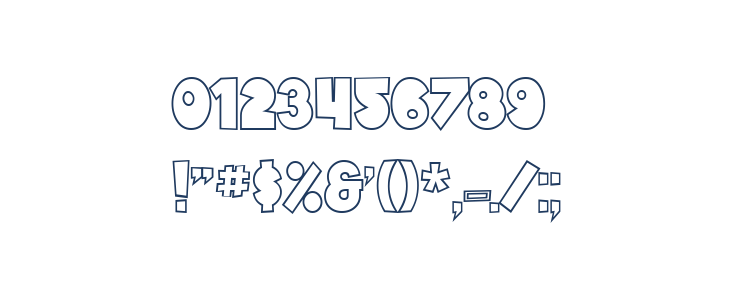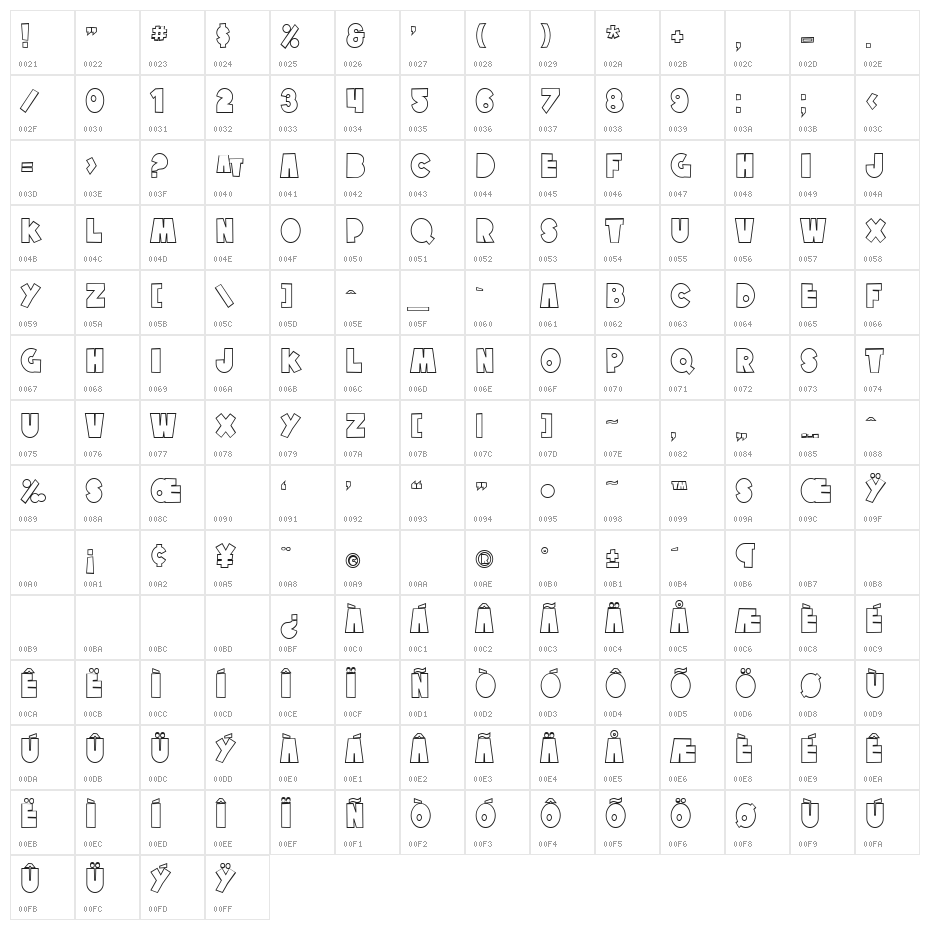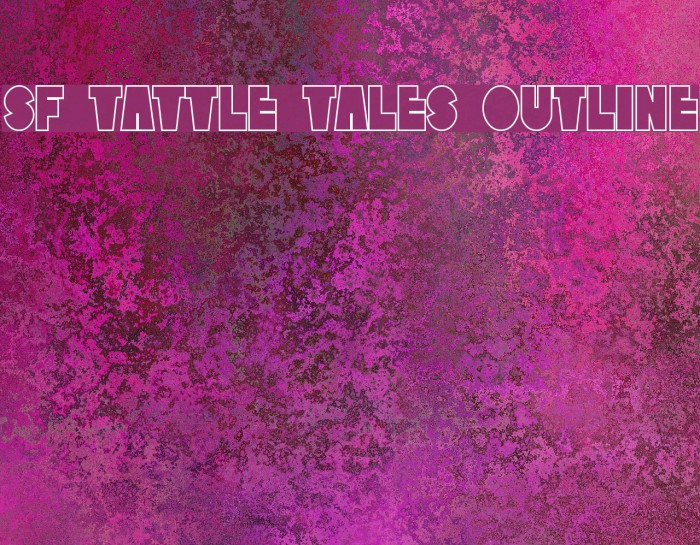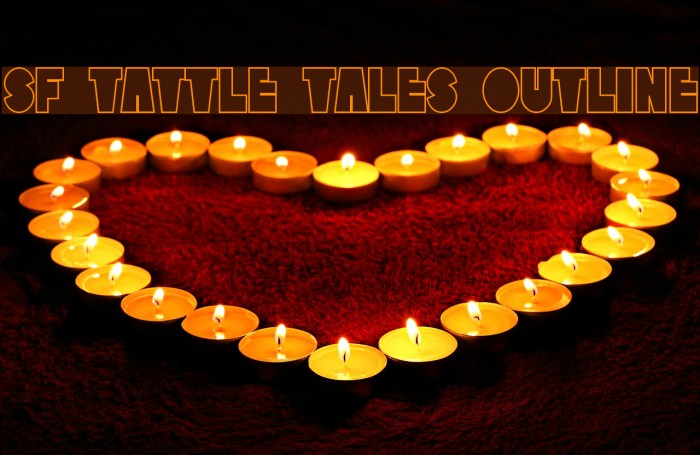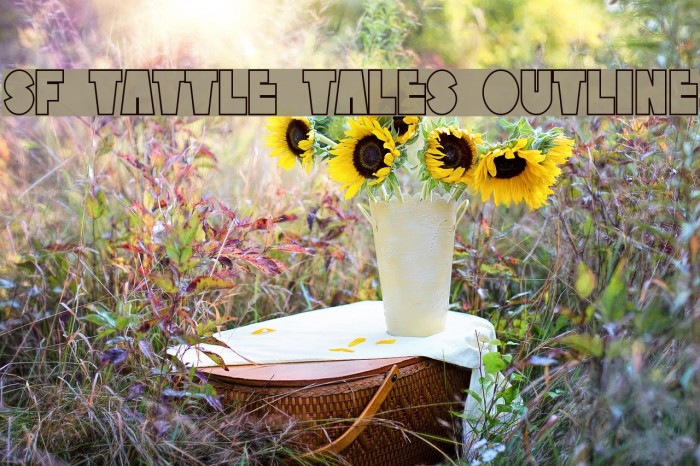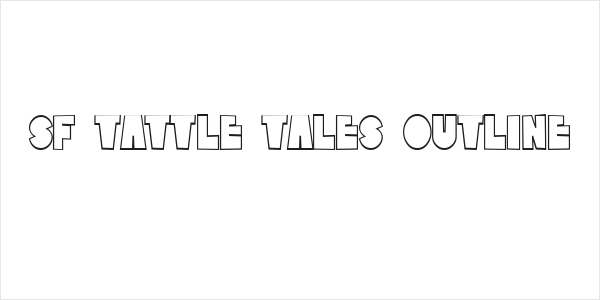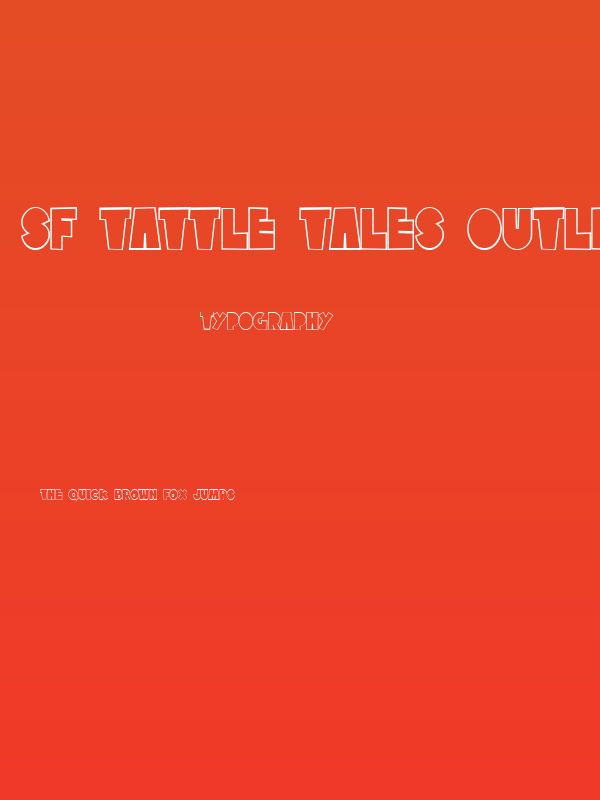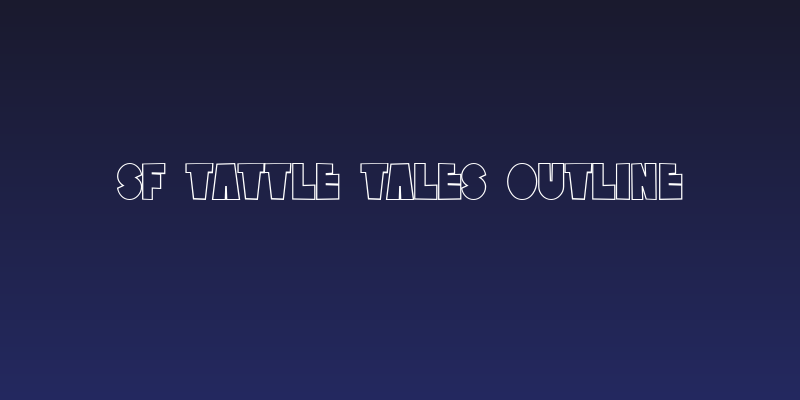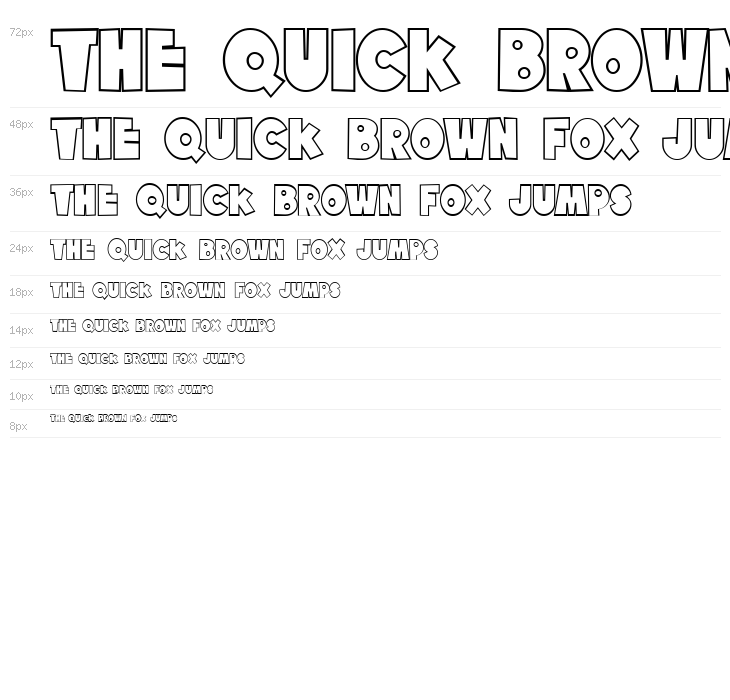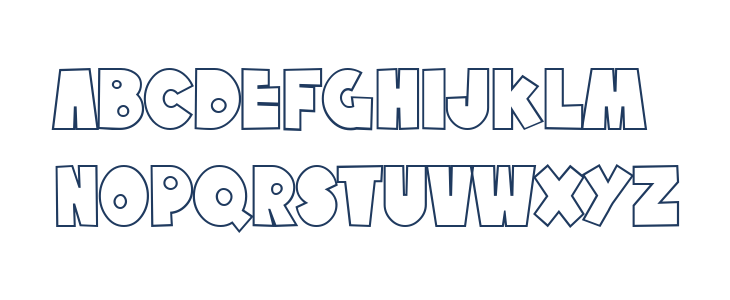
SF Tattle Tales Outline Font
SF Tattle Tales Outline Description
This font features a bold, geometric outline style with a playful and modern aesthetic. The characters are constructed with thick lines that form a hollow interior, giving them a distinctive outlined appearance. The uppercase and lowercase letters maintain a consistent style, with sharp angles and clean lines that create a sense of uniformity. The numbers and special characters follow the same design principles, ensuring a cohesive look across all elements. The font's design is both eye-catching and versatile, making it suitable for a variety of creative applications.